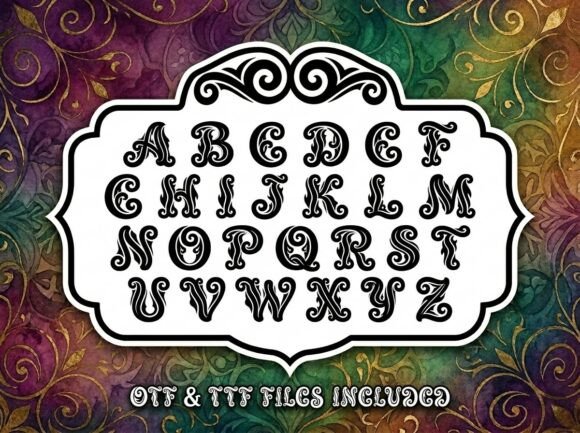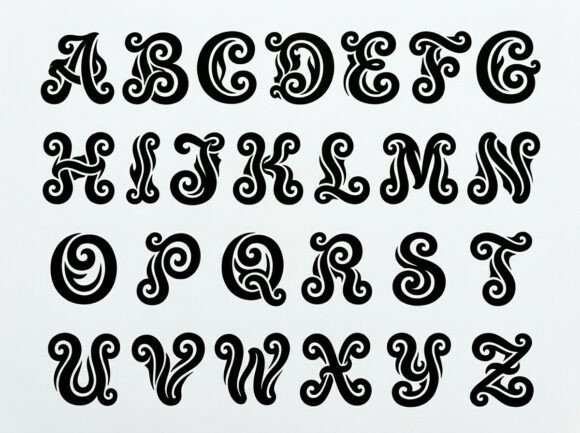
Introduction to Eitne Font
Have you ever been working on a creative project and suddenly, the perfect font pops into your mind, elevating the entire design? That’s exactly what Eitne Font can do for your next project. This stunning decorative display font is designed to make a statement and leave a lasting impression.
As a designer, you know the importance of having a high-quality design resource like Eitne Font at your disposal. With its unique artistic elements and strong visual personality, this font is perfect for breaking away from the ordinary and adding a touch of sophistication to your designs. Whether you’re working on a bold headline, artistic logo, or creative packaging, Eitne Font is sure to deliver a professional and polished finish.
Key Features of Eitne Font
- High-quality design resource ideal for creative projects, offering a unique and stylish touch.
- Designed with precision and attention to detail, making it a valuable asset for any design project.
- Perfect for use in logos, headings, and body text, adding a touch of sophistication and elegance to any creative project.
Honest Review: Eitne Font
I recently came across the Eitne Font while searching for a high-quality design resource to use for my creative project. As a designer, I was excited to try it out and see if it would meet my expectations.
- Wide range of language support, making it a great option for international projects.
Overall, I was impressed with the Eitne Font’s versatility and ease of use. It’s a great addition to any designer’s toolkit and can be used for a variety of creative projects.
- Some users may find the font to be a bit too bold, limiting its use in certain design applications.
- Lack of customizability options, which may be a drawback for designers who like to experiment with different font styles.
Despite these limitations, I would highly recommend the Eitne Font to designers looking for a high-quality, free design resource. It’s a great option for anyone looking to add a touch of sophistication to their creative project.